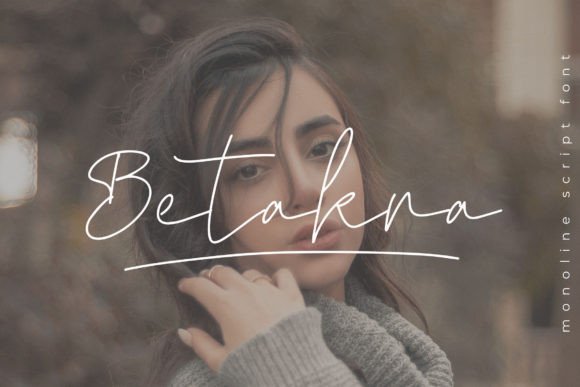
The Font that Stole My Heart: A Deep Dive into Betakra Monoline Script Font
I still remember the day I stumbled upon Betakra Monoline Script Font while working on a branding project for a high-end fashion client. I had tried countless fonts, but none seemed to capture the essence of elegance and sophistication I was looking for. That was until I laid eyes on Betakra – its sleek lines, unique shapes, and fluid curves instantly won me over. In this article, I’ll share my experience with Betakra, its features, and how to make the most of this beautiful font.
An Honest Review of Betakra
What I Love About Betakra ✨
- ✅ Elegant and sophisticated design that’s perfect for high-end branding and product visuals
- ✅ Unique character shapes that add a touch of personality to any project
- ✅ Sleek monoline design that works well in both digital and print formats
- ✅ Easy to read and versatile, making it suitable for a wide range of applications
- ⚠️ Limited availability of stylistic alternates, which may limit creative flexibility
- ⚠️ May not work well with very short or very long text blocks, as its elegance shines best in medium-length text
Betakra supports various OpenType features, including ligatures, stylistic alternates, and glyphs. These features allow you to customize your text and add a unique touch to your designs. To access these features:
- Use ligatures to connect letters and create a more fluid, natural look
The Story Behind Betakra
Betakra was designed with the goal of creating a elegant and sophisticated script font that would add a touch of luxury to any project. The designer drew inspiration from classic calligraphy and modern typography, combining the best of both worlds to create a unique and versatile font.
| What is the best use for Betakra? | Betakra is ideal for high-end branding, product visuals, and creative designs where elegance and sophistication are key. |
| Is Betakra suitable for body text? | While Betakra is easy to read, it’s best suited for medium-length text blocks, such as headings, subheadings, and short paragraphs. |
| How do I access OpenType features in Betakra? | OpenType features can be accessed through the Glyphs panel in Adobe Photoshop and Illustrator, or through the font settings in compatible software. |